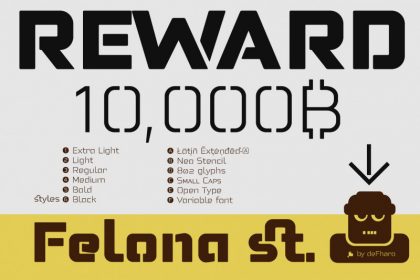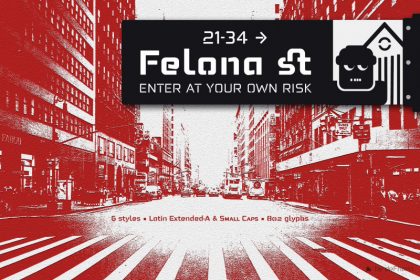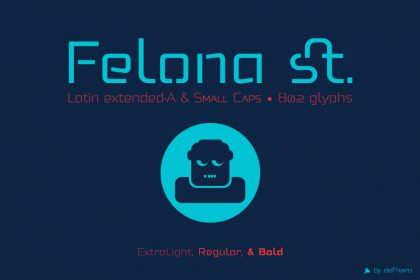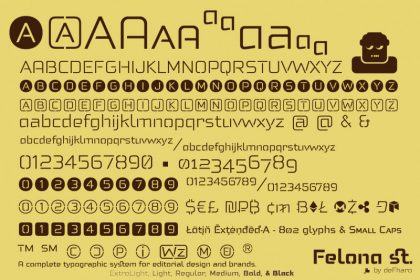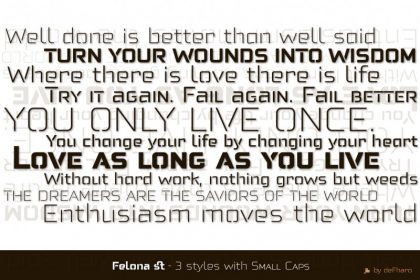
Felona st. Neo Stencil fonts
Felona st. is a Neo Stencil advanced typography with 6 styles that includes small letters (Small Caps). The typography has a large table of characters with 802 glyphs.
Felona st is framed in technological style typographies with rounded shapes of minimalist design, in the case of Felona the proportion of the cuts to turn it into a font of the template type have been very careful, avoiding superfluous cuts and creating other originals. I also offer 3 alternative set of the letter A in uppercase, lowercase and small Caps. The readability of this typeface is guaranteed for any size and situation, both in print or screen. Its use in graphic design, publishing and advertising guarantees originality and difference. A very versatile fonts for advertising posters, video games, film titles, logos, publications, etc. includes the symbol of Bitcoin and other cryptocurrencies.